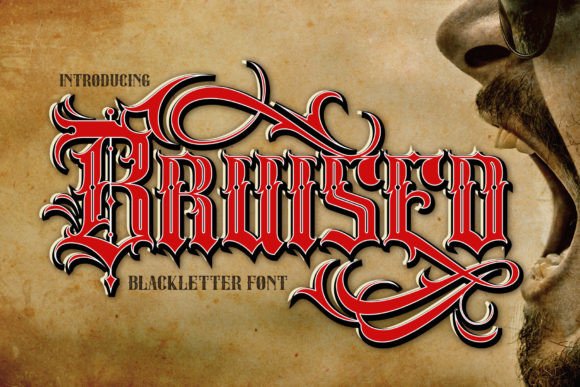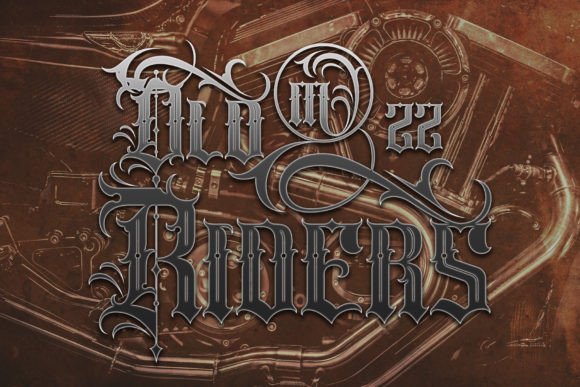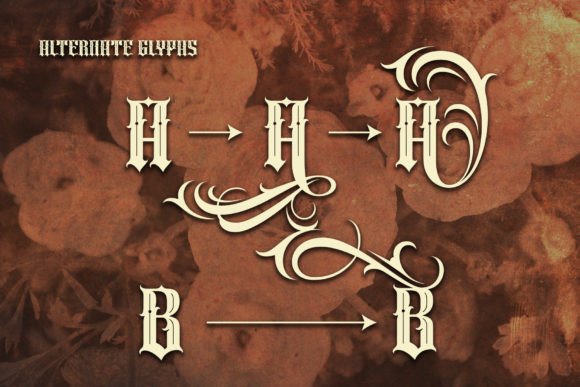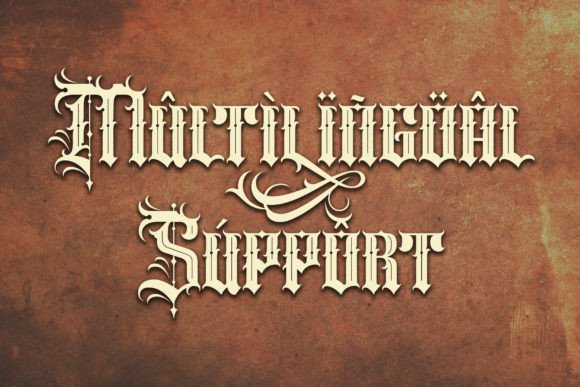
Bruised Font: Bold Blackletter Typography for Tattoo Designs & Logos
About the Bruised Font
Get ready to be inspired by Bruised Font, a fresh and dynamic typeface for modern creators. Bruised is a contemporary blackletter tattoo font that feels right at home on logos, t-shirt designs, posters, flyers, and other brand identity items. Add it confidently to your projects, and you will love the results.
Bruised excels in headline applications, short impactful phrases, and branding elements where a bold, rebellious statement is desired. Its strong character makes it ideal for edgy apparel designs, music posters, and tattoo-related projects. Avoid using it for body copy or lengthy text; its intricate details can become visually overwhelming at smaller sizes.
The font’s core personality is bold and assertive, yet retains a contemporary edge. This makes it perfect for brands projecting strength, individuality, and a slightly unconventional approach.
Pairing Bruised with a clean sans-serif like Montserrat for body text or a simple geometric sans-serif like Futura for supporting elements creates a visually balanced design. Conversely, a delicate script font like Great Vibes can add a touch of contrast and sophistication, softening the overall impact of the blackletter style.